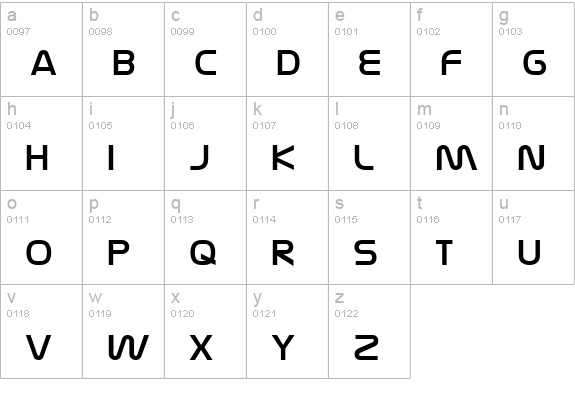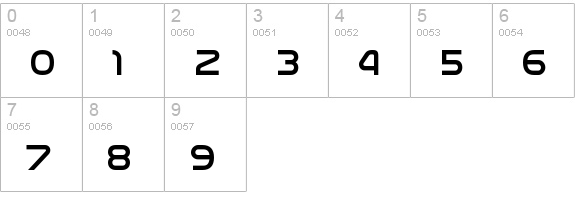
Nasalization Free Font Details
Nasalization Free font is a modern and stylish typeface that exudes a futuristic and tech-savvy vibe. With its sleek lines and geometric shapes, this font is perfect for projects that require a contemporary touch. The clean and minimalistic design of Nasalization Free font makes it versatile and suitable for a wide range of applications, from branding to web design. Best of all, Nasalization Free font is completely free to download at FontsMarket.com. This means you can easily access this high-quality font without any cost, making it a valuable resource for designers and creatives looking to enhance their projects. Don't miss out on the opportunity to add Nasalization Free font to your collection and take your designs to the next level.